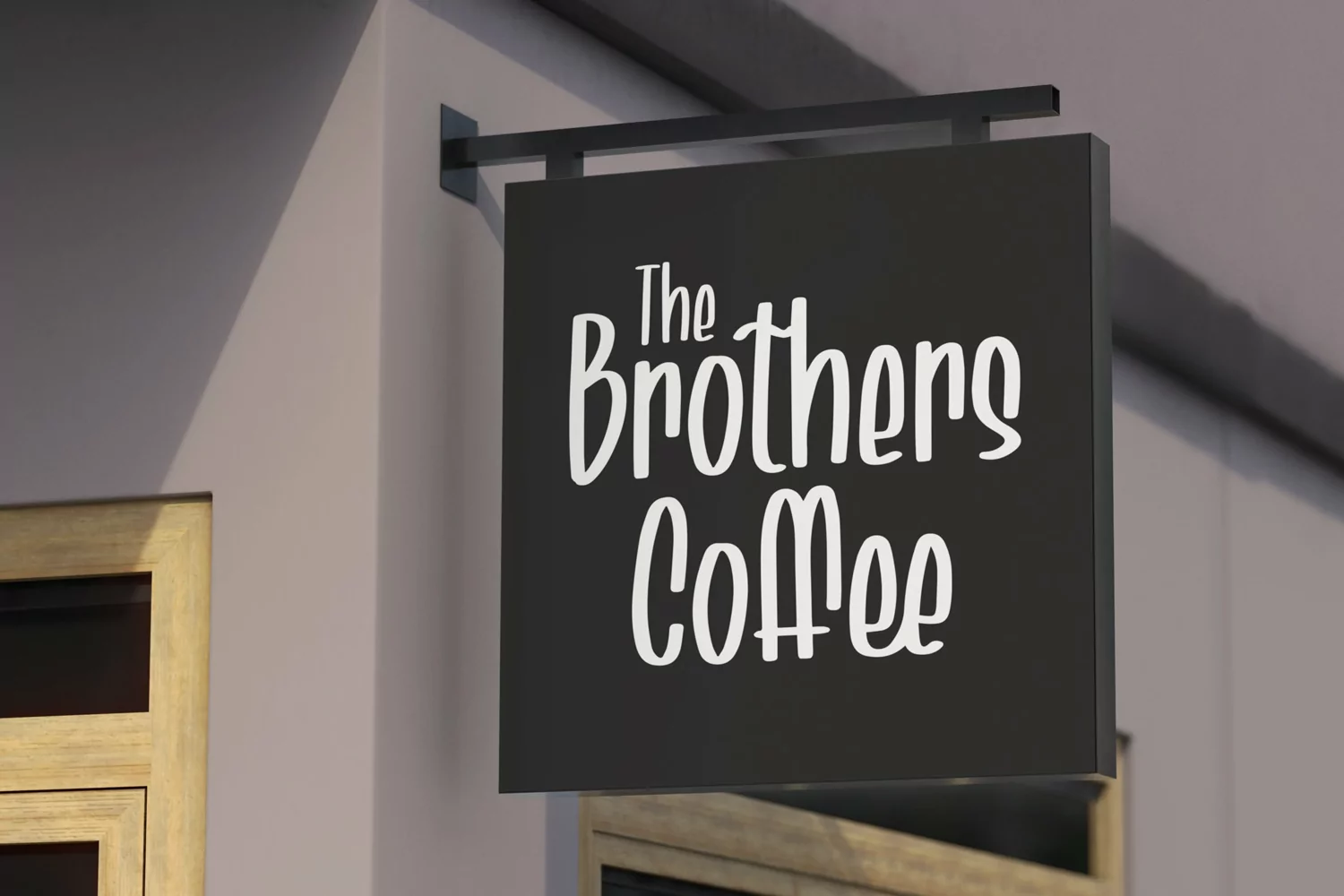
Fortuna - Cute Handrawn Font that contain lowercase, uppercase, symbol, and also support multi language. There’s a lot ligatures in this font. This Font also comes with ligatures, alternates and many more. this font suitable for fashion, branding, catalog and other design what you want.
Fortuna